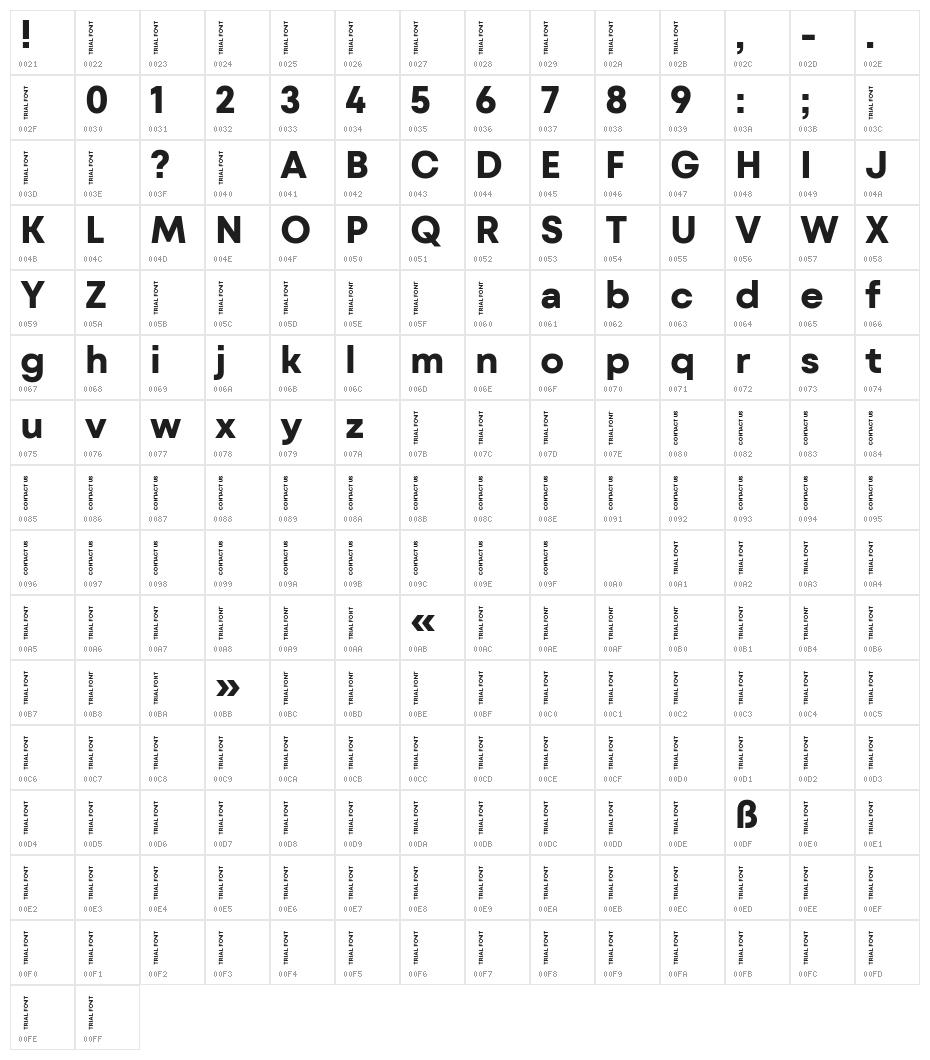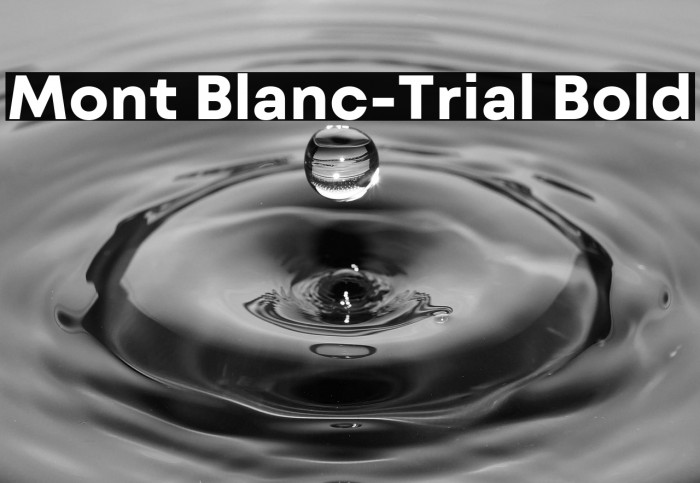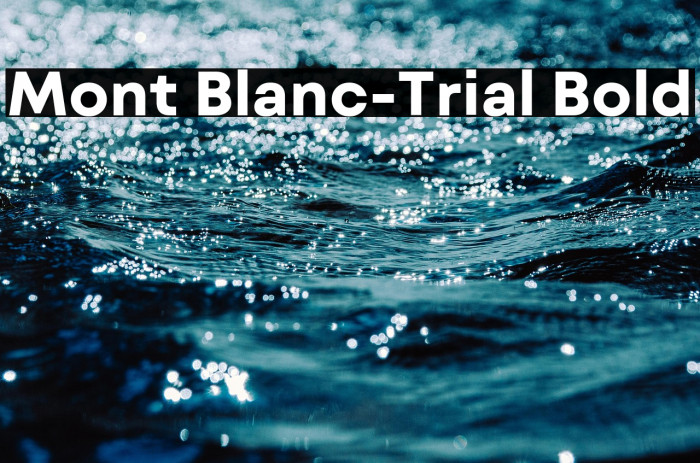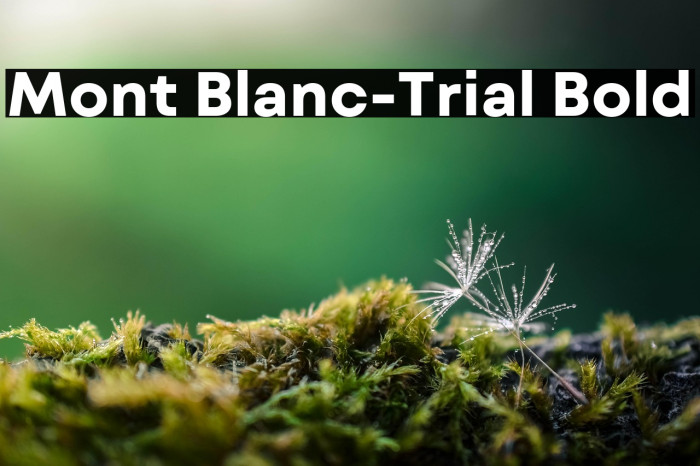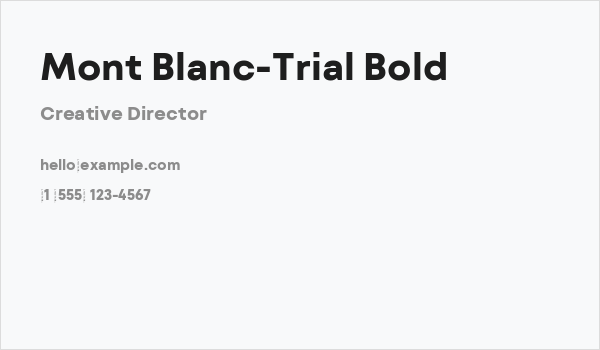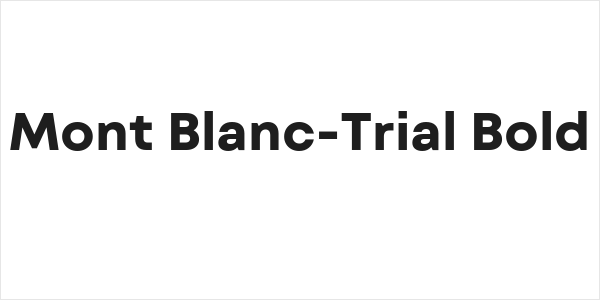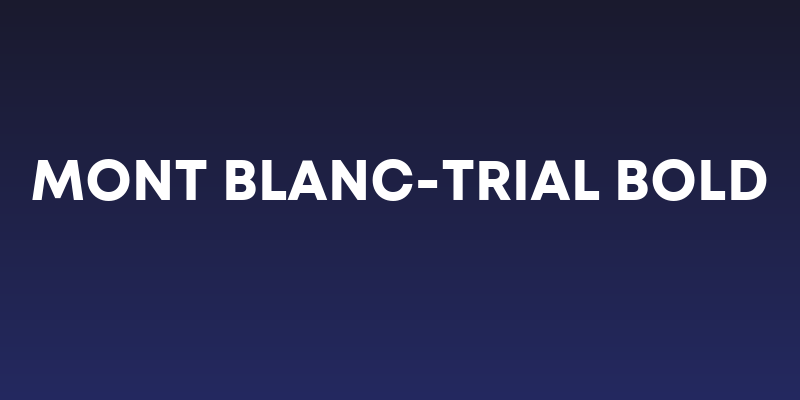
Mont Blanc-Trial Bold Font
Mont Blanc-Trial Bold Description
This font features a bold and modern design with clean lines and a strong presence. The uppercase and lowercase letters are well-proportioned, offering a sense of balance and readability. The numerals are robust and consistent with the overall style, making them suitable for various applications. Special characters are clearly defined, maintaining the font's cohesive look. The design is versatile, making it ideal for both digital and print media. Its bold weight and straightforward design make it a great choice for impactful headlines and branding projects.
| Proposed Projects | Ideal for branding, headlines, advertising, and digital media. |